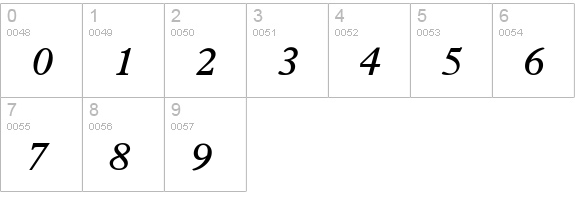
Terminus SSi Semi Bold Italic is a strong, high-contrast, italic variant in the Terminus typeface family \xE2\x80\x94 well suited to headlines, attention-grabbing titles, and strong calls-to-action.
Terminus SSi Semi Bold Italic font is a striking typeface that combines the boldness of its semi-bold weight with the elegant slant of its italic style. With its distinct and eye-catching design, this font is perfect for adding a touch of sophistication and modernity to any project. The Terminus SSi Semi Bold Italic font features strong, confident letterforms that stand out on both digital and printed media. Its semi-bold weight adds a sense of authority and impact to headlines, titles, and logos, while the italic style adds a touch of flair and elegance to body text and captions. This font is not only visually appealing but also highly legible, ensuring that your message is communicated clearly and effectively. Its clean lines and well-defined curves make it easy to read, even at smaller sizes or on screens with lower resolutions. Whether you're designing a website, creating a brochure, or crafting a presentation, Terminus SSi Semi Bold Italic font will make your text pop. One of the best things about Terminus SSi Semi Bold Italic font is that it is freely available to download at FontsMarket.com. This means that you can easily access and use this font for personal and commercial projects without any restrictions. The ability to obtain this font for free adds incredible value and convenience to designers and creatives who are looking for high-quality typefaces to enhance their work. With its boldness, elegance, and easy availability, Terminus SSi Semi Bold Italic font is a must-have for any designer or typographer. Whether you're creating a brand identity, designing a poster, or simply want to elevate your typography game, this font will help you achieve stunning results. Don't miss out on the opportunity to enhance your creative projects with this amazing font – download Terminus SSi Semi Bold Italic font for free at FontsMarket.com today!